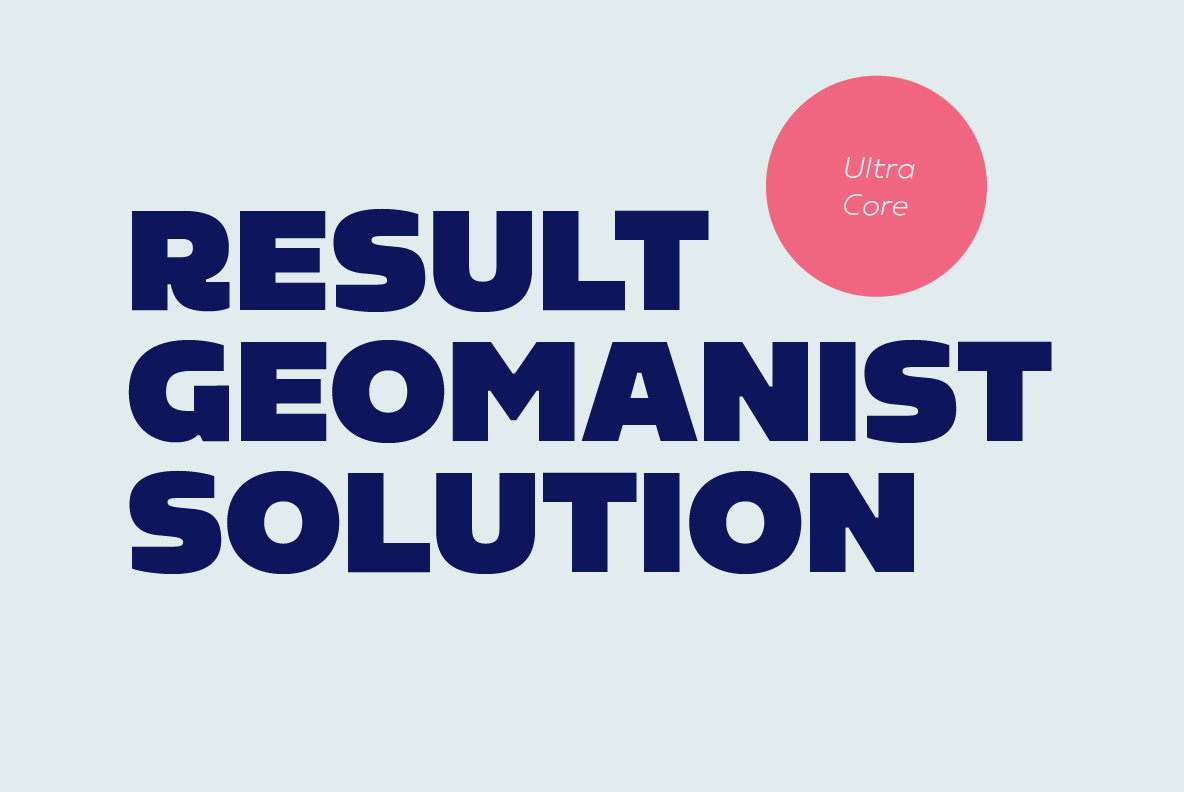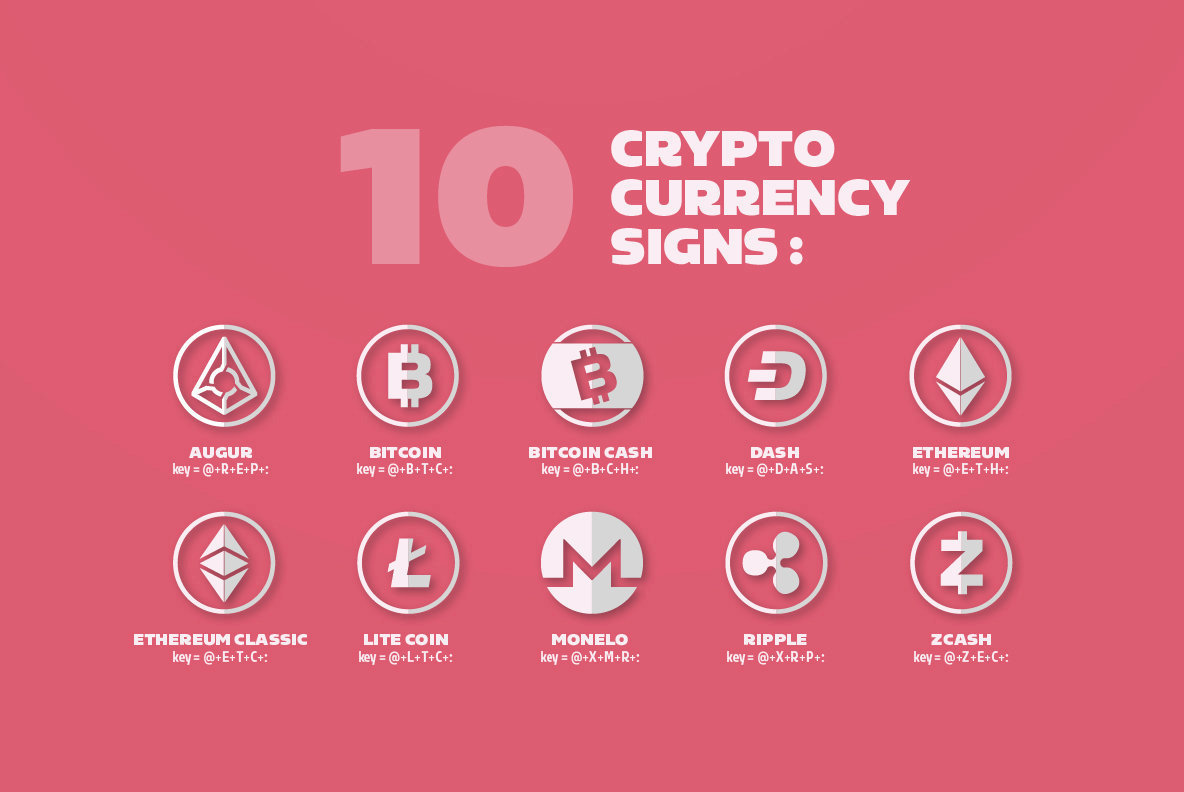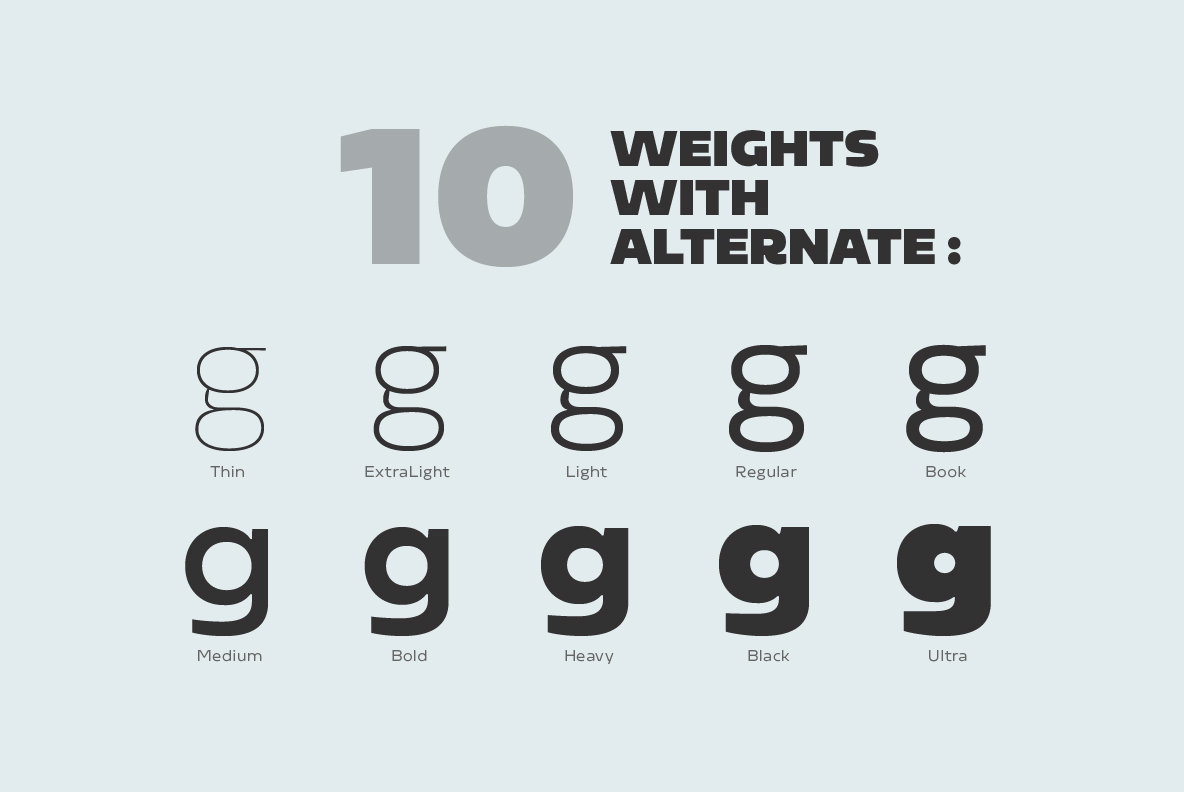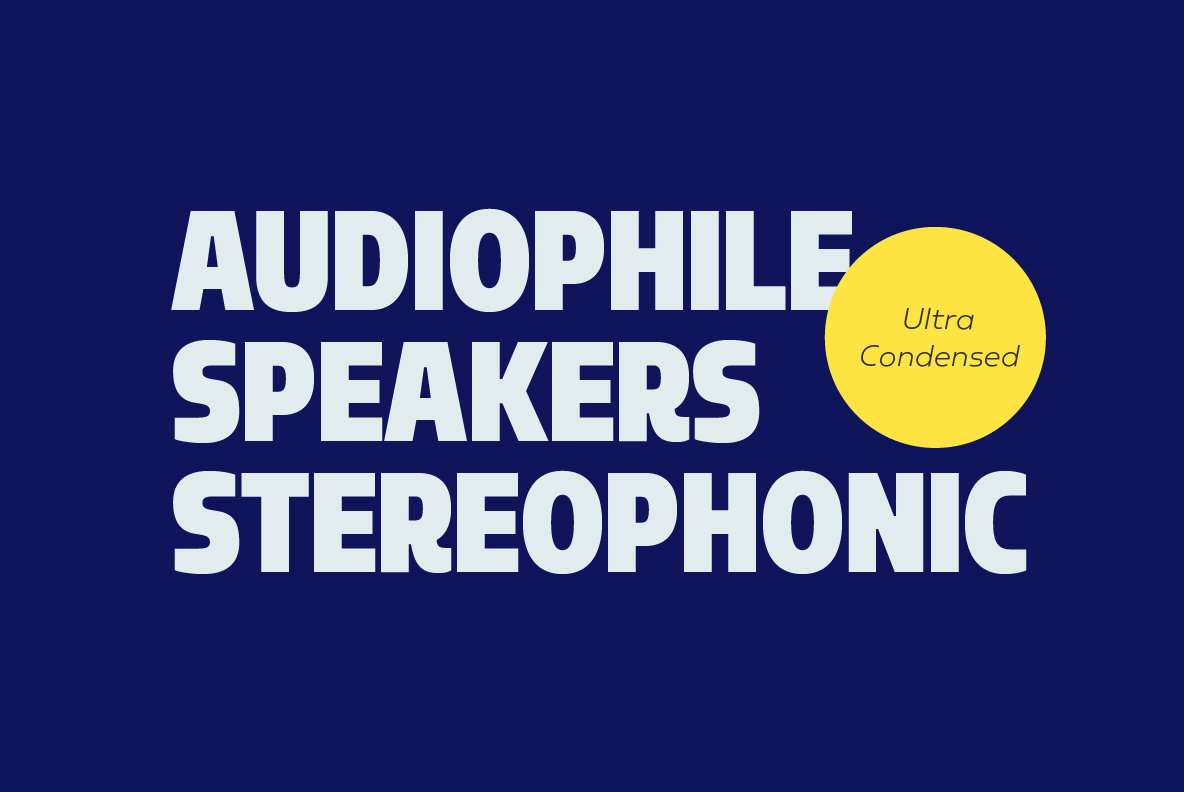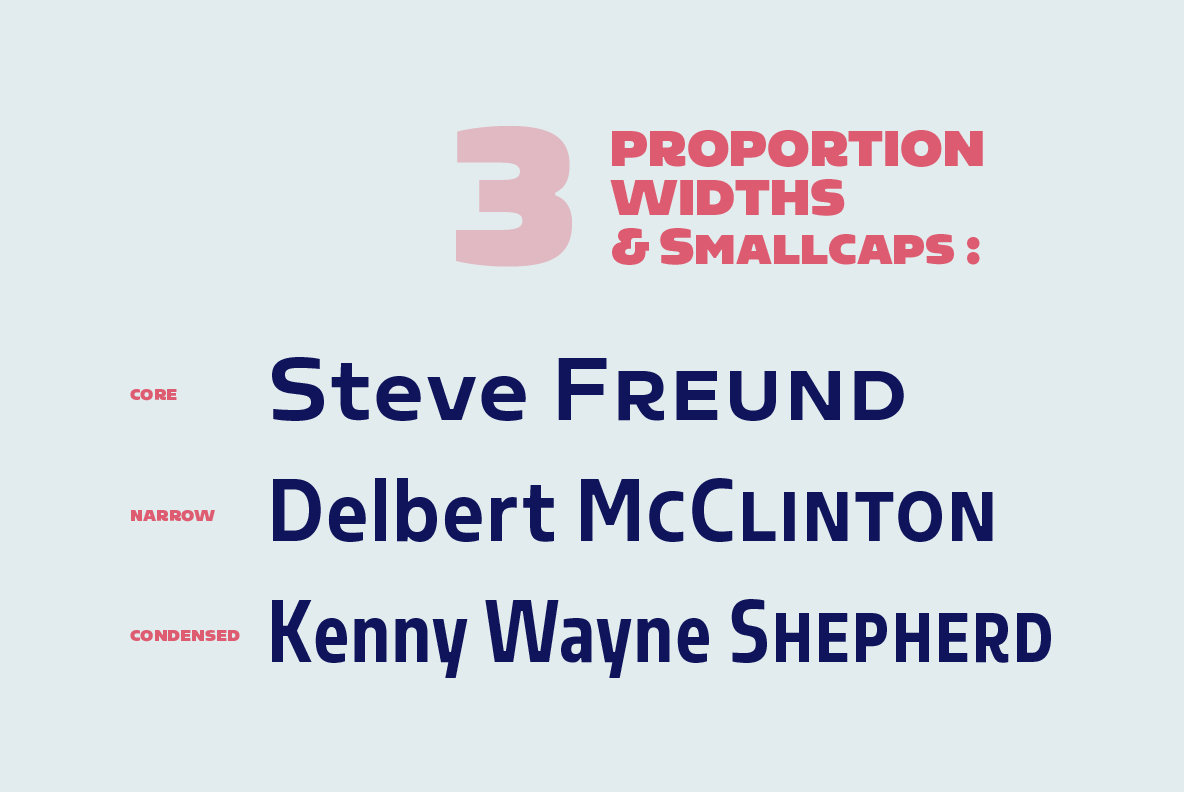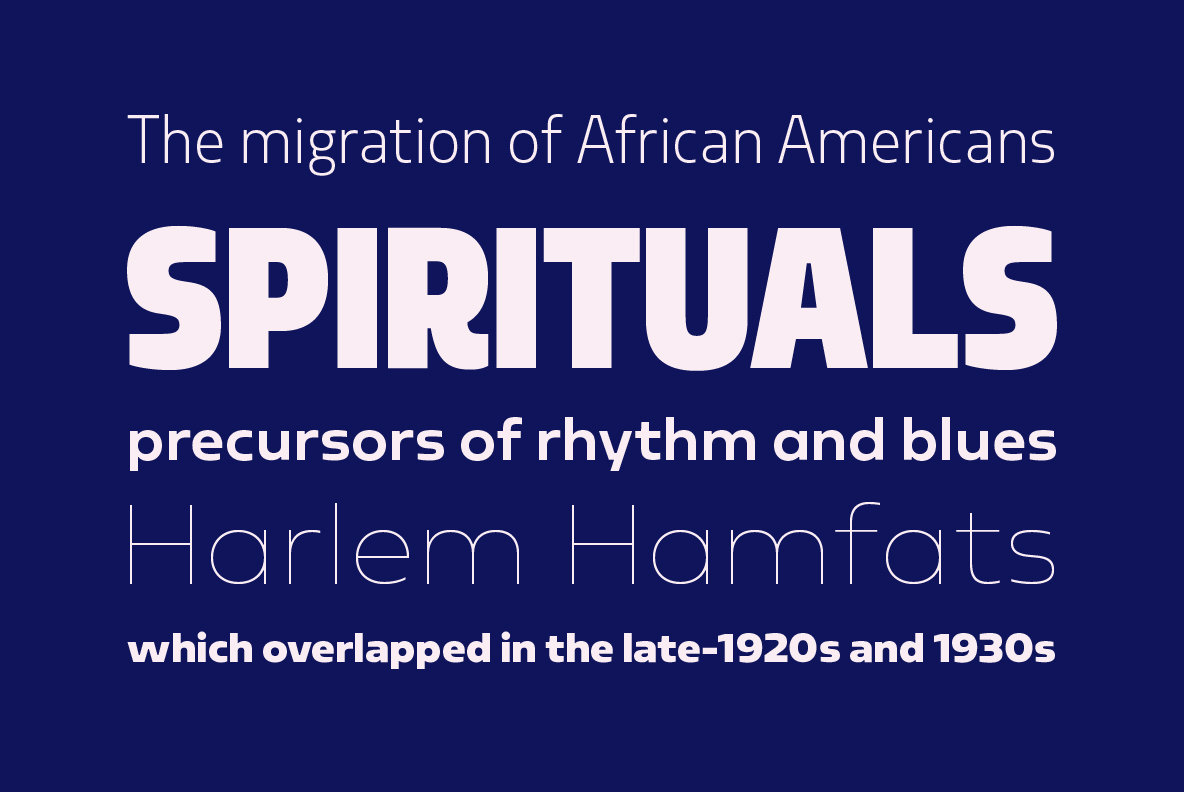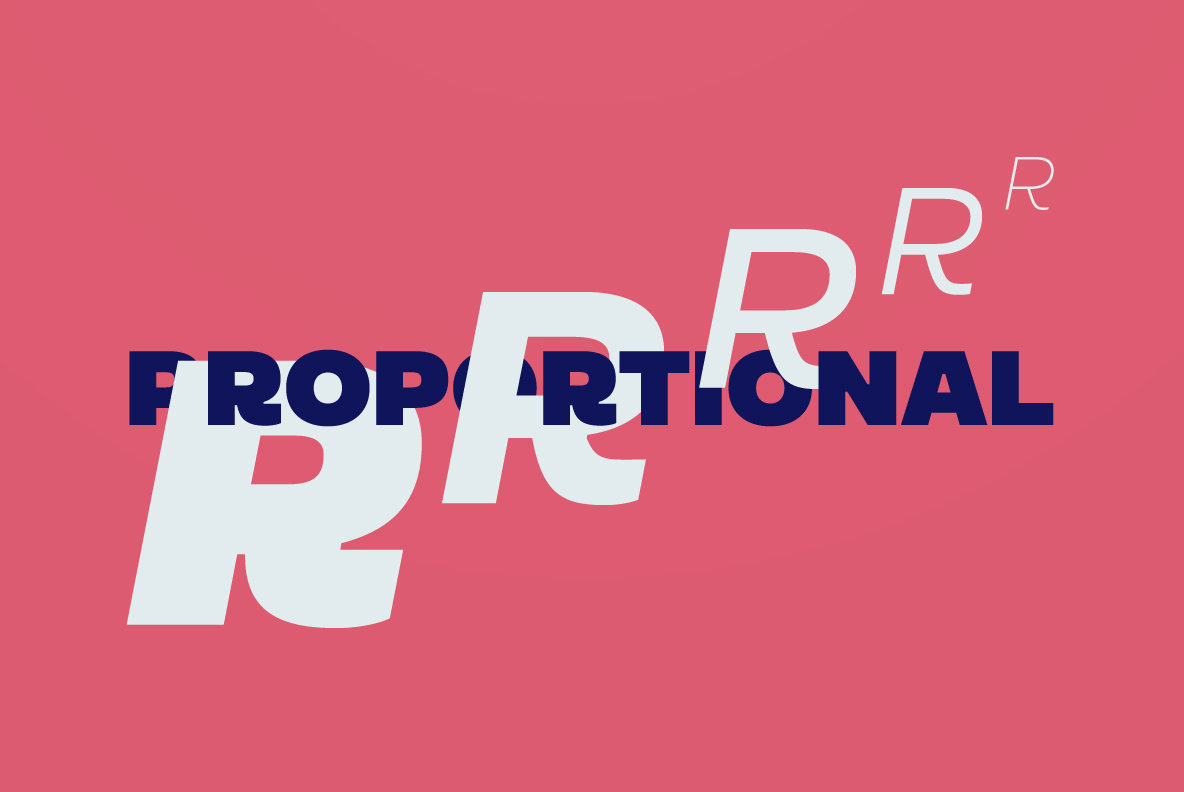
Sarun Font
Sarun is a typeface that harmonizes between Humanist, Geometric and Industrial Sans, it would be a bit problematic to define its definite character. But in the opposite, Sarun is very compatible with layouts and super easy to use in variety of designs. Not only equipped with Italic, Small Caps and a complete Alternate set. Sarun is also provided with 10 most significant Cryptocurrency signs.
Sarun is included with 10 weights and 3 widths along with Italic in every styles.